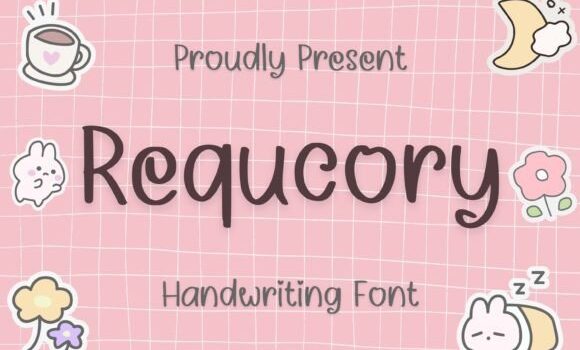
requcory
Requcory Font – Free Download Introduction to Requcory Font Requcory is a cute and lovely handwritten font that can be used for all chalkboard quotes or non-formal invitations. 📸 Preview Gallery 5 images 📌 Product Name Requcory Font 👤 Author